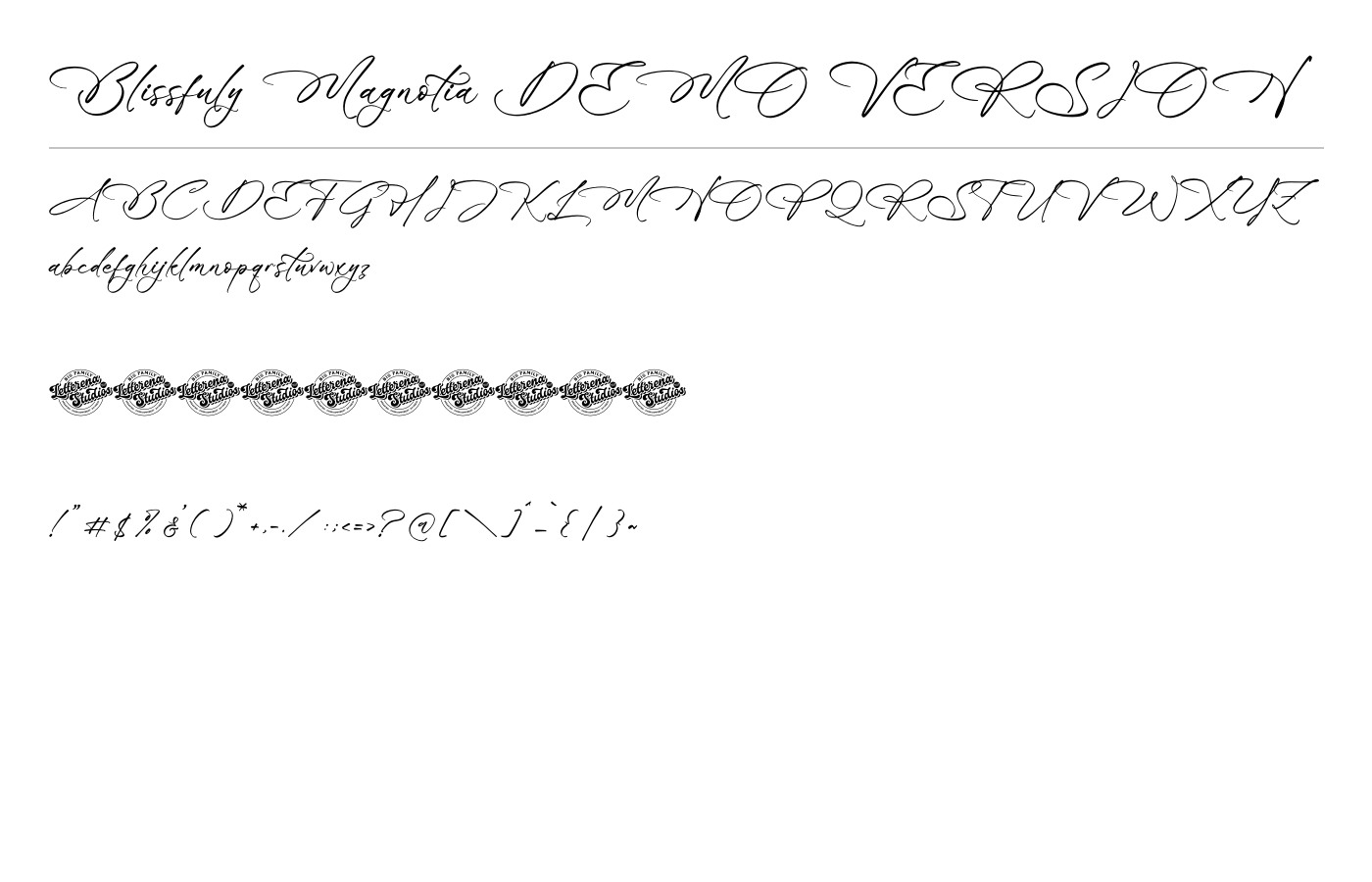
Blissfuly Magnotia DEMO VERSION is an elegant, flowing script font characterized by thin, delicate strokes and graceful, looping letterforms that evoke a sense of refined sophistication. Its light weight and airy style make it perfect for luxurious branding, wedding invitations, and artistic logo designs where a touch of romance and personal flair is desired. This font’s fluid, handwritten feel adds charm and uniqueness, making it a great choice for creating a stylish, intimate atmosphere in both print and digital projects.
Blissfuly Magnotia DEMO VERSION Font
About Blissfuly Magnotia DEMO VERSION Font
| Font family | Blissfuly Magnotia DEMO VERSION Font |